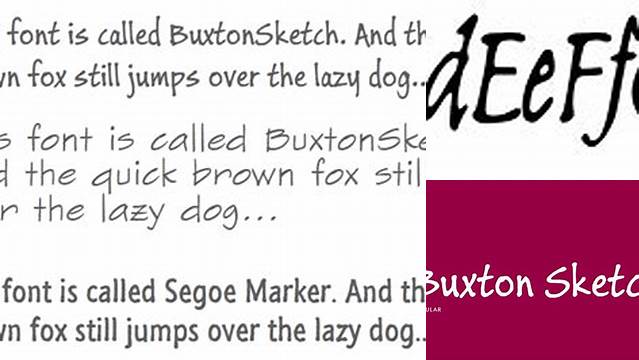
Buxton Sketch Font Free Download: Your Ultimate Guide
Buxton Sketch Font: Free Download is a fantastic choice for adding a touch of personality and a handcrafted feel to your design projects. This guide will walk you through everything you need to know about the Buxton Sketch font, from where to download it for free, to how to use it effectively in your designs, and even some creative ideas to get you started. Whether you're a seasoned designer or just starting out, this article will provide you with valuable insights and inspiration.
H2: Discovering the Charm of Buxton Sketch Font
Buxton Sketch, guys, is more than just a font; it's a statement. It's got this incredible ability to evoke a sense of warmth, approachability, and a distinctly human touch. Think about it: in a world dominated by sleek, polished designs, Buxton Sketch stands out with its hand-drawn aesthetic. It’s like a breath of fresh air, reminding us of the beauty of imperfection and the unique character that comes with a sketch-like style. So, why should you care about Buxton Sketch? Well, because it can elevate your designs from the ordinary to the extraordinary. It can give your brand a personality, making it memorable and relatable to your audience. This font is perfect for a wide array of projects, from branding and logos to website headers, social media graphics, and even print materials. The versatility of Buxton Sketch makes it a go-to choice for many designers looking to create visually appealing and engaging content. The font's casual, handwritten style makes it ideal for conveying a sense of authenticity and creativity. It’s a great way to add a personal touch to your work, ensuring your designs stand out in a crowded digital landscape. The rough edges and imperfect lines of Buxton Sketch give it a genuine, handmade feel, which can be a welcome change from the often-sterile look of many modern fonts. Using Buxton Sketch can also reflect a brand that values creativity and individuality, making it a great choice for businesses that want to build a strong brand identity.
Buxton Sketch brings a unique and handcrafted feel to any design. It's like the difference between a perfectly typed email and a heartfelt, handwritten note. The font's charm lies in its ability to create a sense of connection with the viewer. It speaks of authenticity and creativity, qualities that resonate strongly with audiences today. In a world saturated with digital perfection, Buxton Sketch offers a refreshing return to the human touch. Think about how it could transform your website header, making your brand more approachable. Or imagine the impact it could have on your social media graphics, grabbing attention and creating a lasting impression. The font also brings a lot of flexibility to designers because of its informal, yet legible, style. You can use it for headings, subheadings, and even short body text, depending on the context. It can also be combined with other fonts to add a touch of personality without compromising readability. Buxton Sketch is not just a font; it's a design tool that can help you tell your brand's story. It's a tool that can inject personality, charm, and creativity into your work, setting you apart from the competition. The key is to explore its various applications, experiment with its effects, and let your imagination run wild. The result will be designs that are not only visually appealing but also deeply engaging.